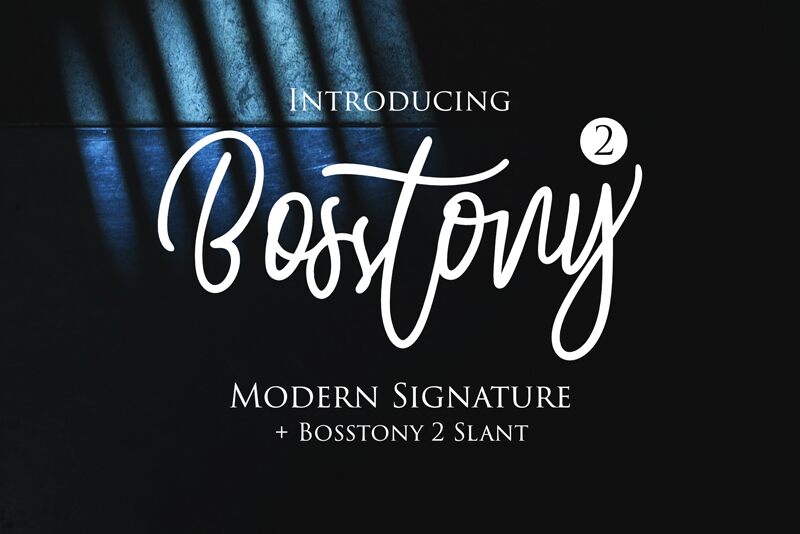
Bosstony 2 font by DumadiStyle is an expressive condensed handwritten font with a cohesive flow. It carries a modern yet casual aesthetic, combining elegance with a personal touch. The characters perfectly adopt the handwriting style which contrasts their thick and thin formation in one fine mix.
A free handwritten font that provides various use cases in designs for invitation cards, planner pages, logo creation, greeting cards, posters, journals, vintage branding projects, typography t-shirts and apparel items branding.